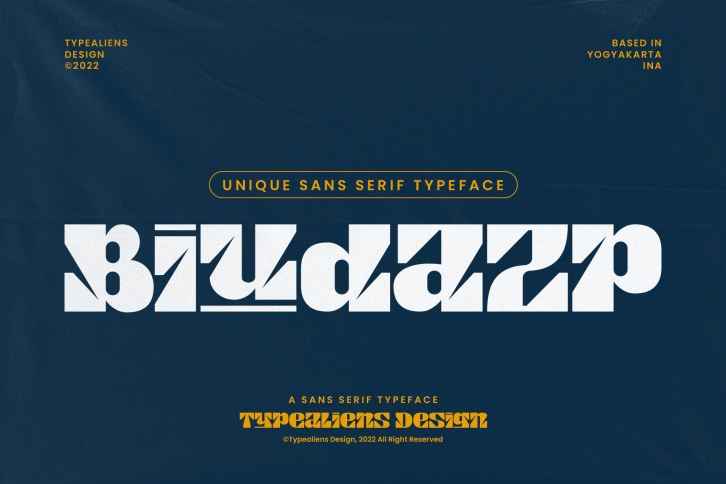
Biudazp is a unique and modern sans serif font perfect for contemporary designs. Add it to any of your creative projects, and it will capture everyone's attention!